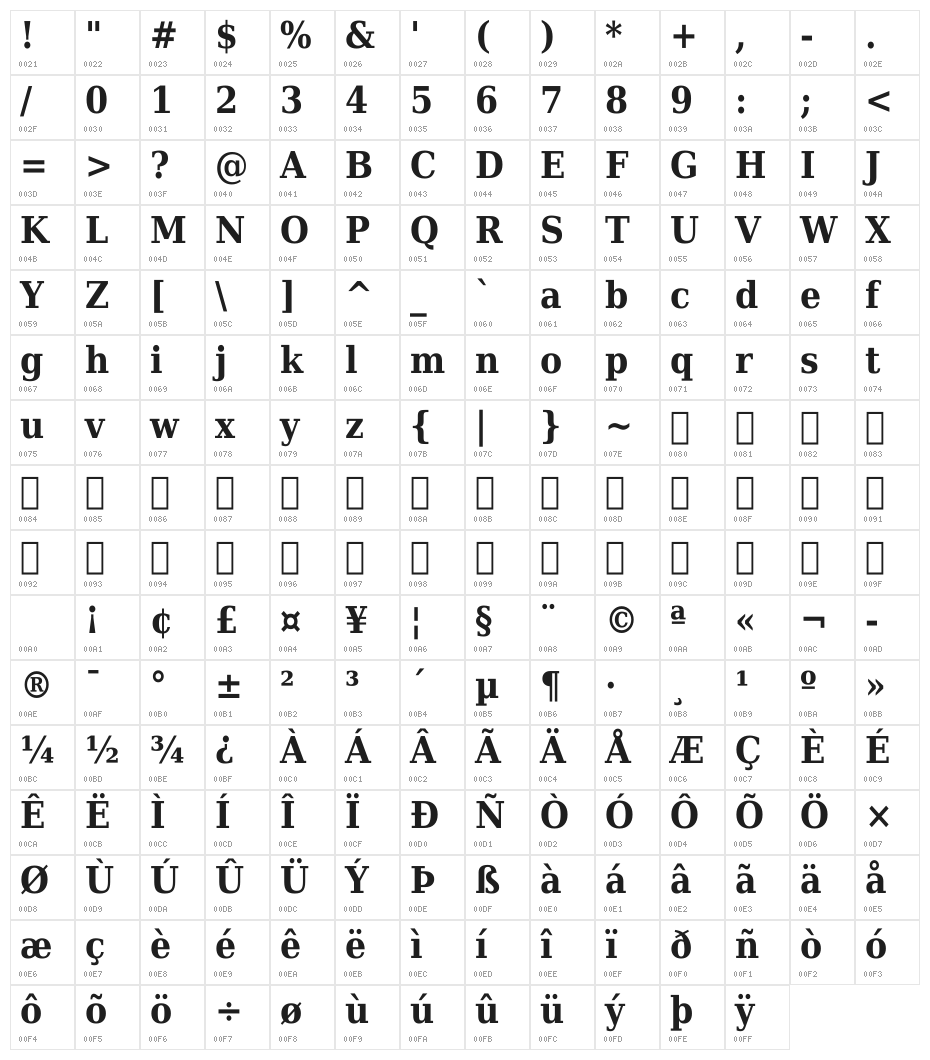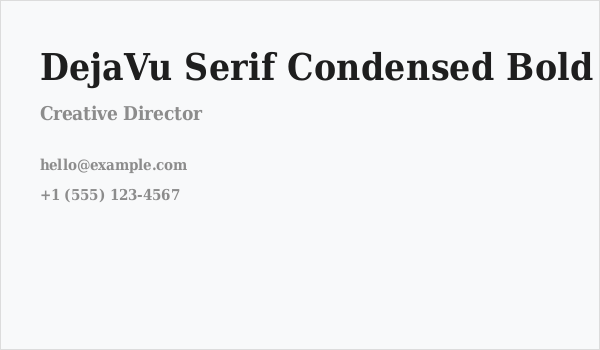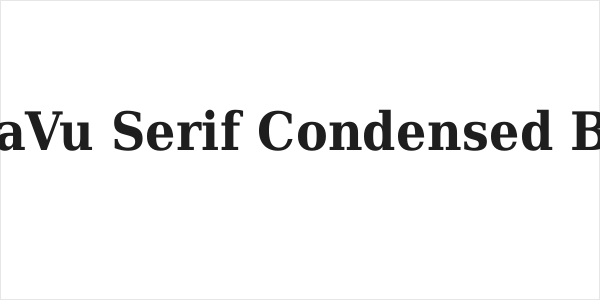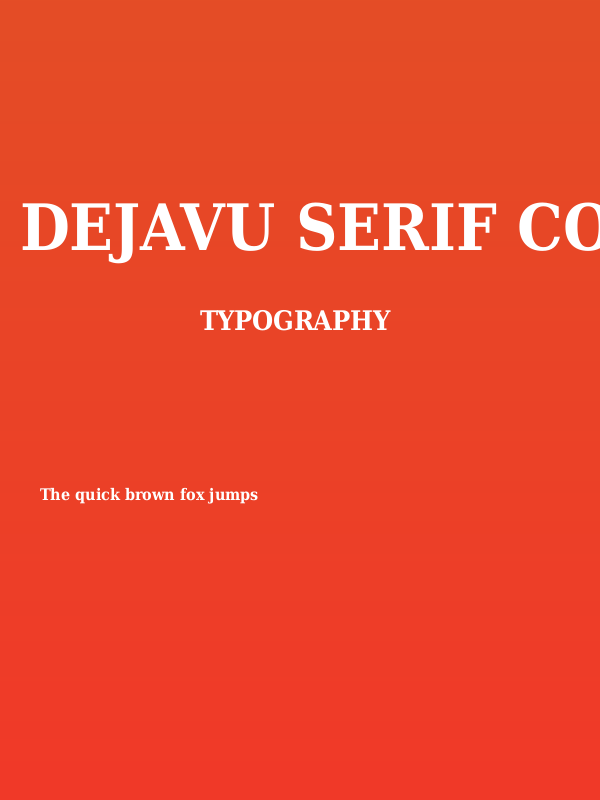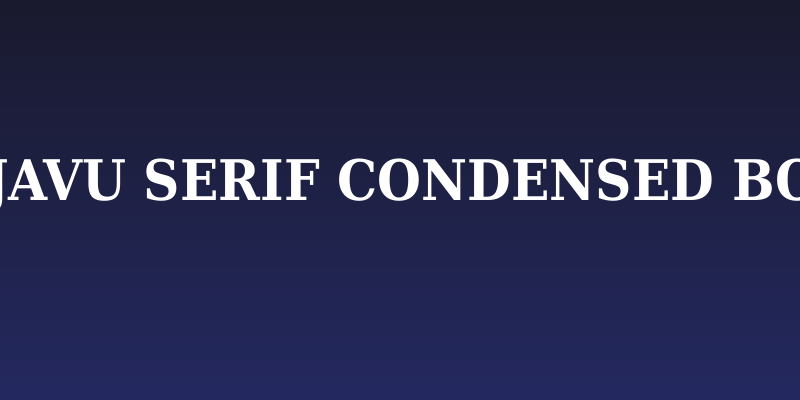
DejaVu Serif Condensed Bold Font
DejaVu Serif Condensed Bold Description
This font features a classic serif style with a condensed structure, providing a bold and authoritative appearance. The serifs are pronounced, adding a traditional touch, while the condensed nature allows for efficient use of space. The bold weight enhances its presence, making it suitable for impactful headlines and titles. The characters are well-defined with a medium contrast in stroke thickness, ensuring readability while maintaining a strong visual impact. The overall style is a blend of classic and modern elements, making it versatile for various design needs.
| Proposed Projects | Ideal for editorial design, book covers, headlines, and branding projects requiring a strong, traditional yet modern typeface. |